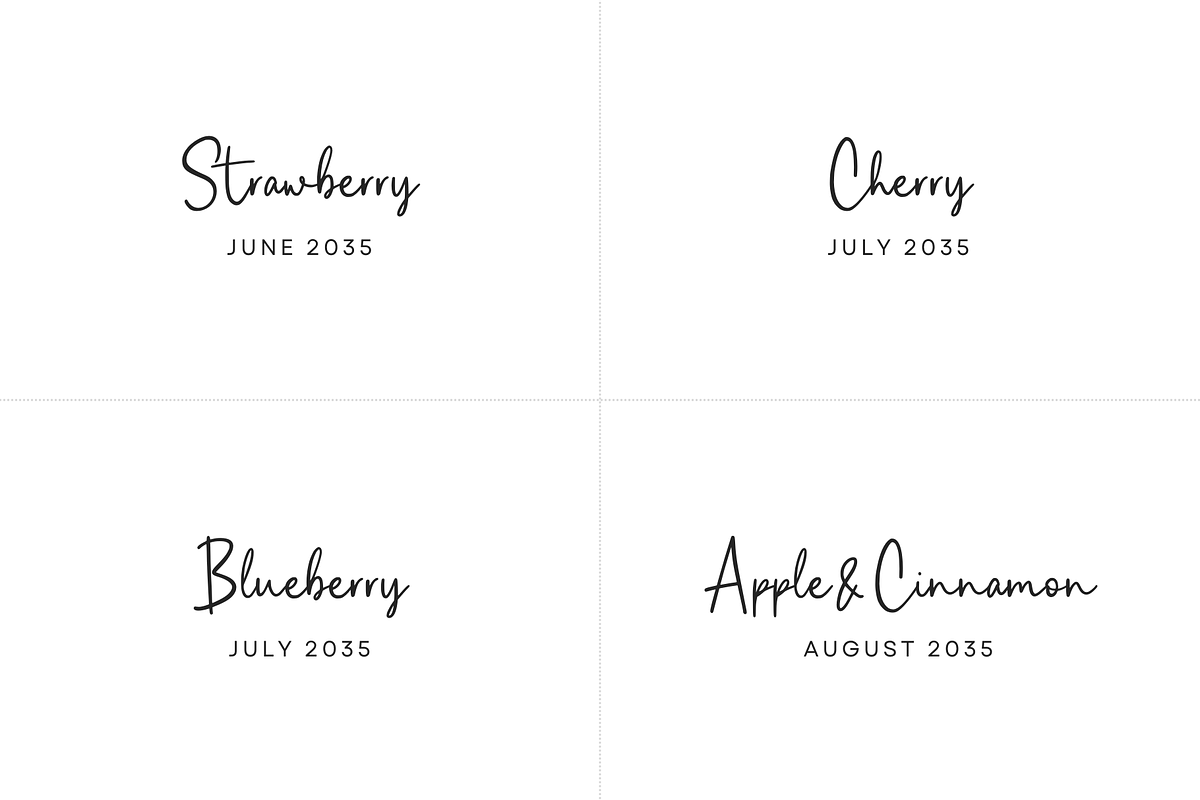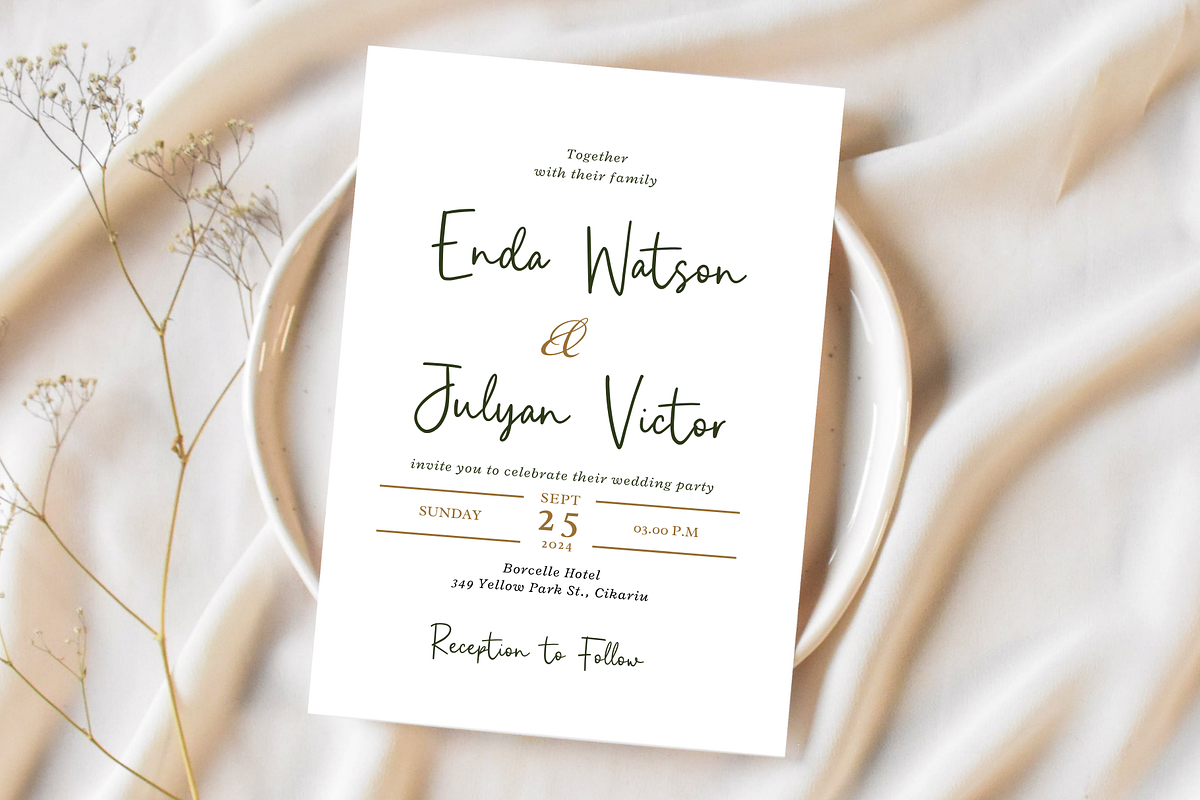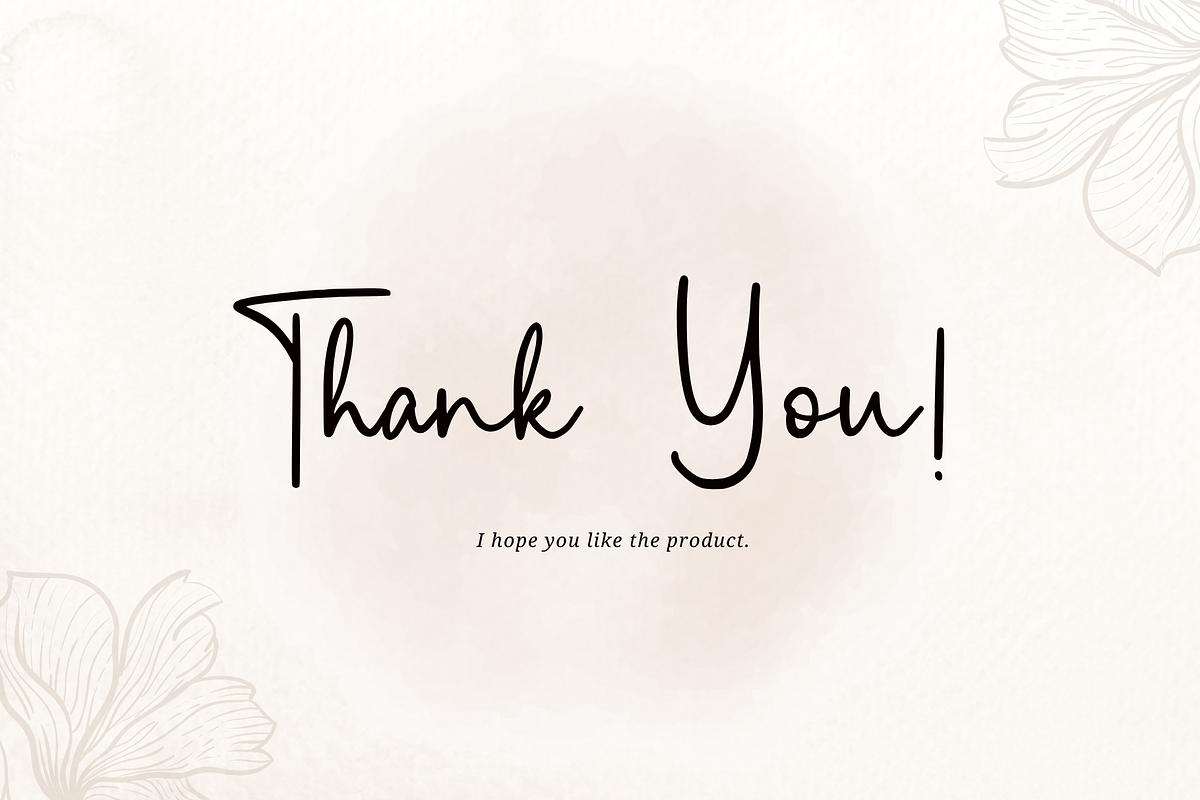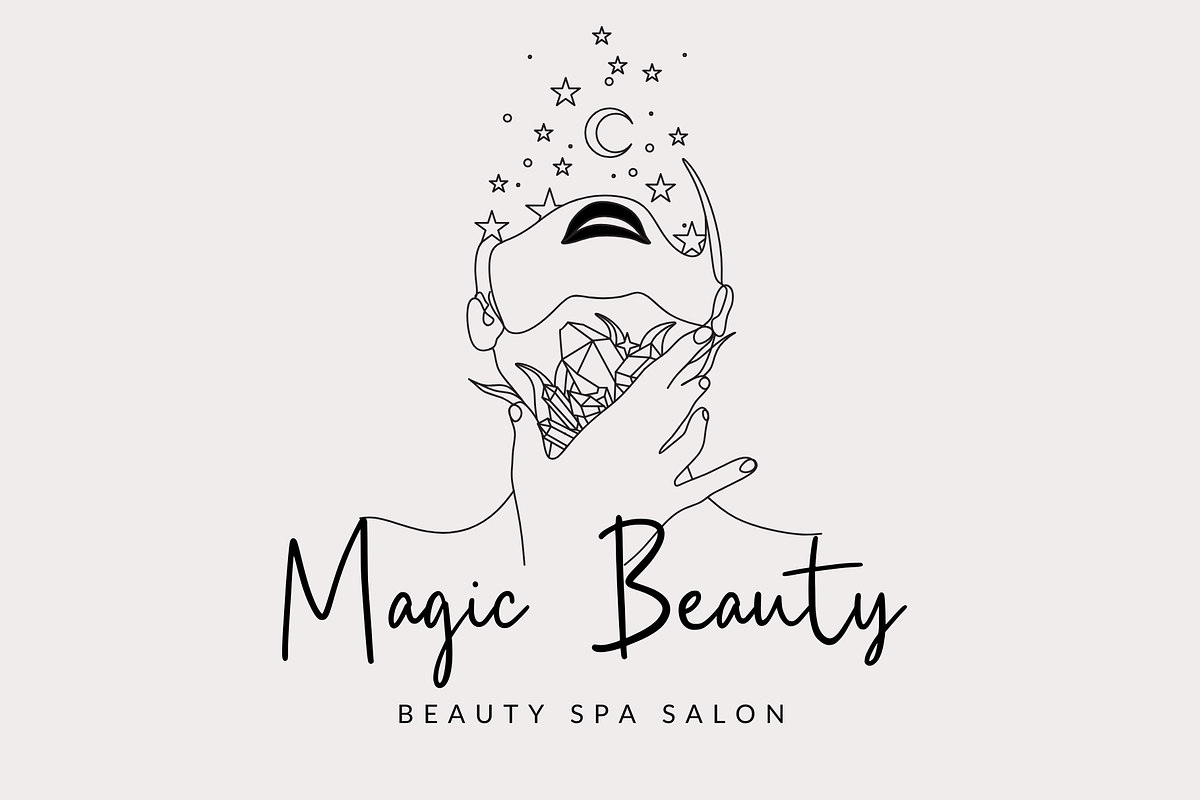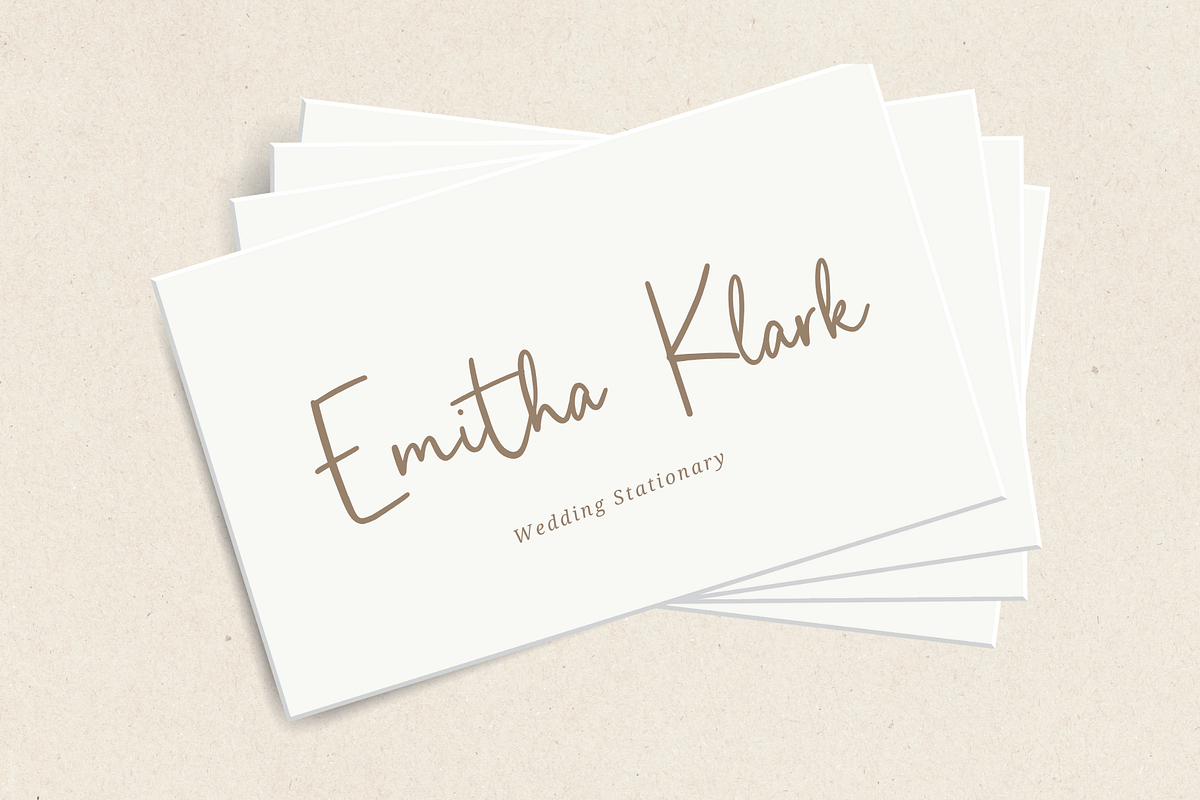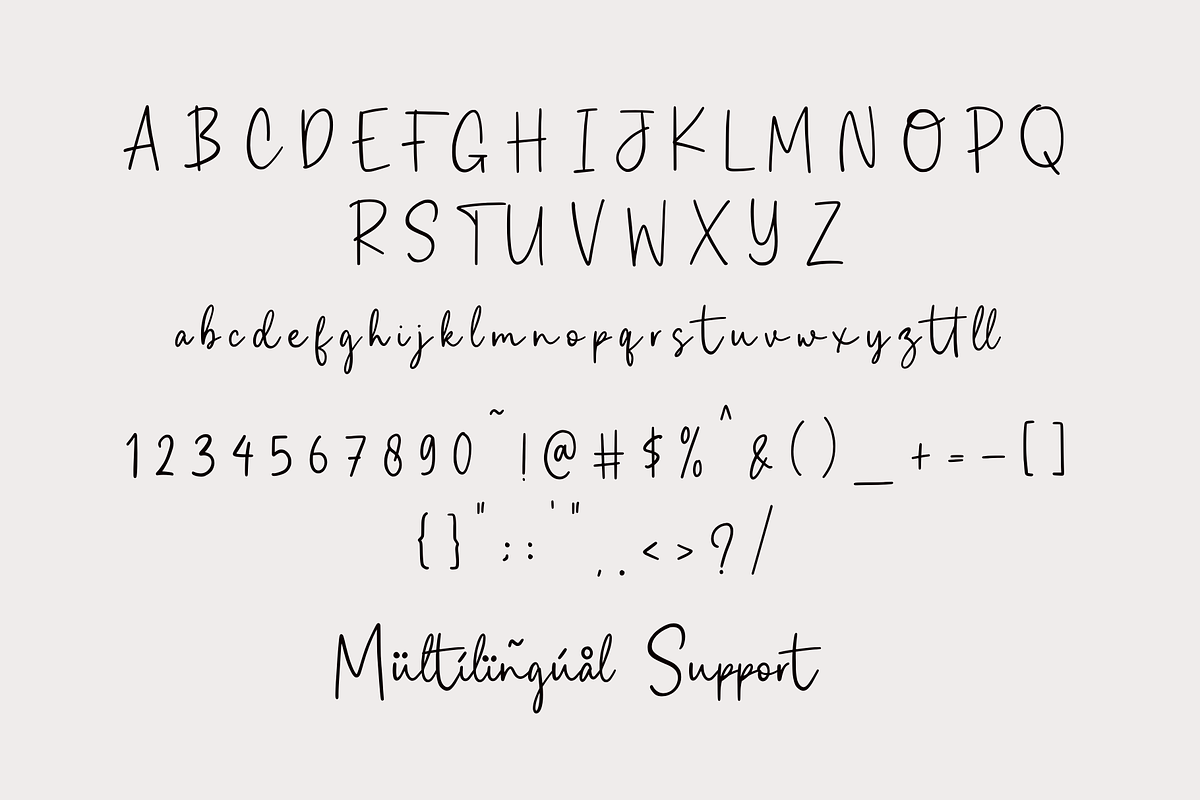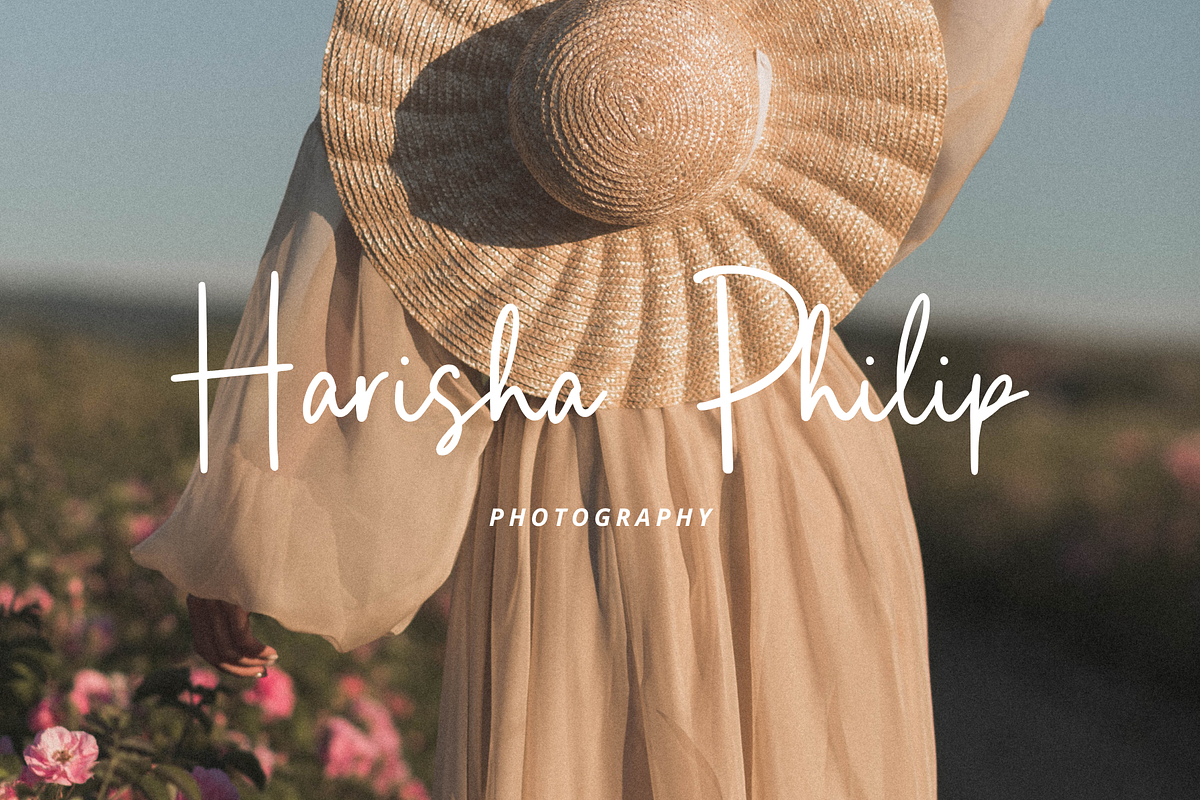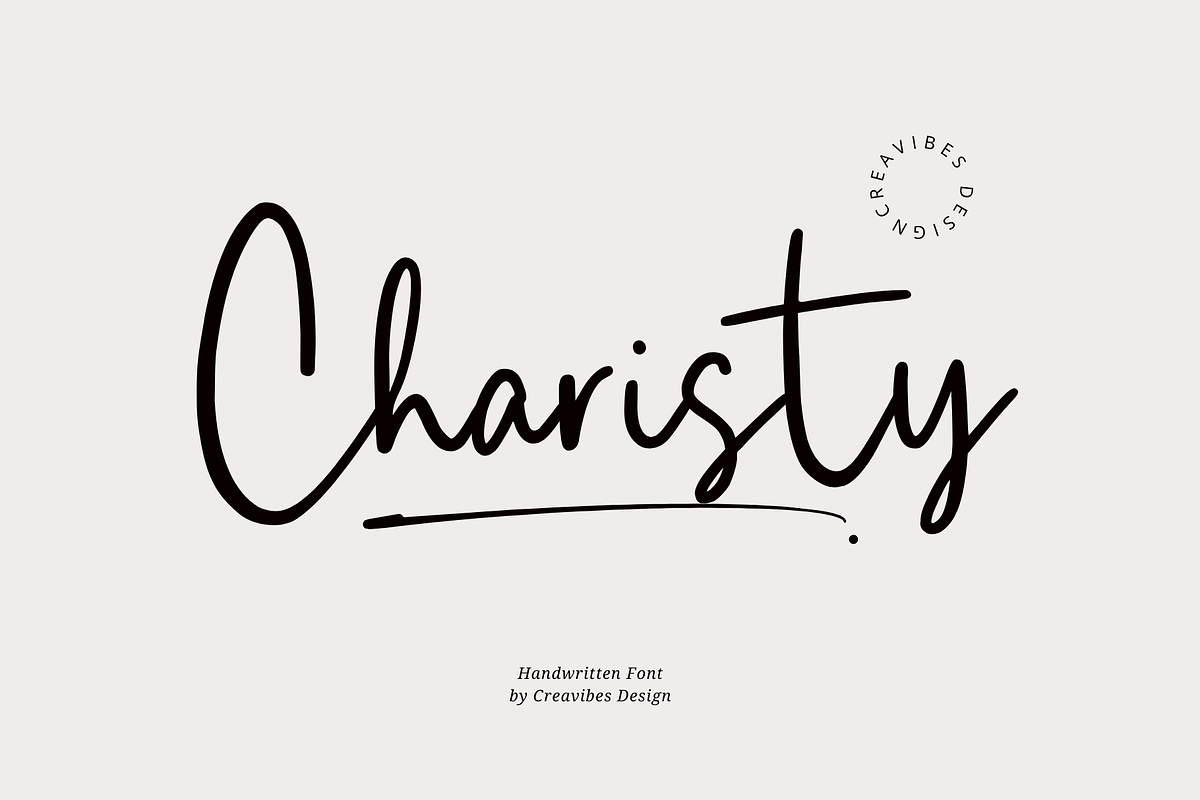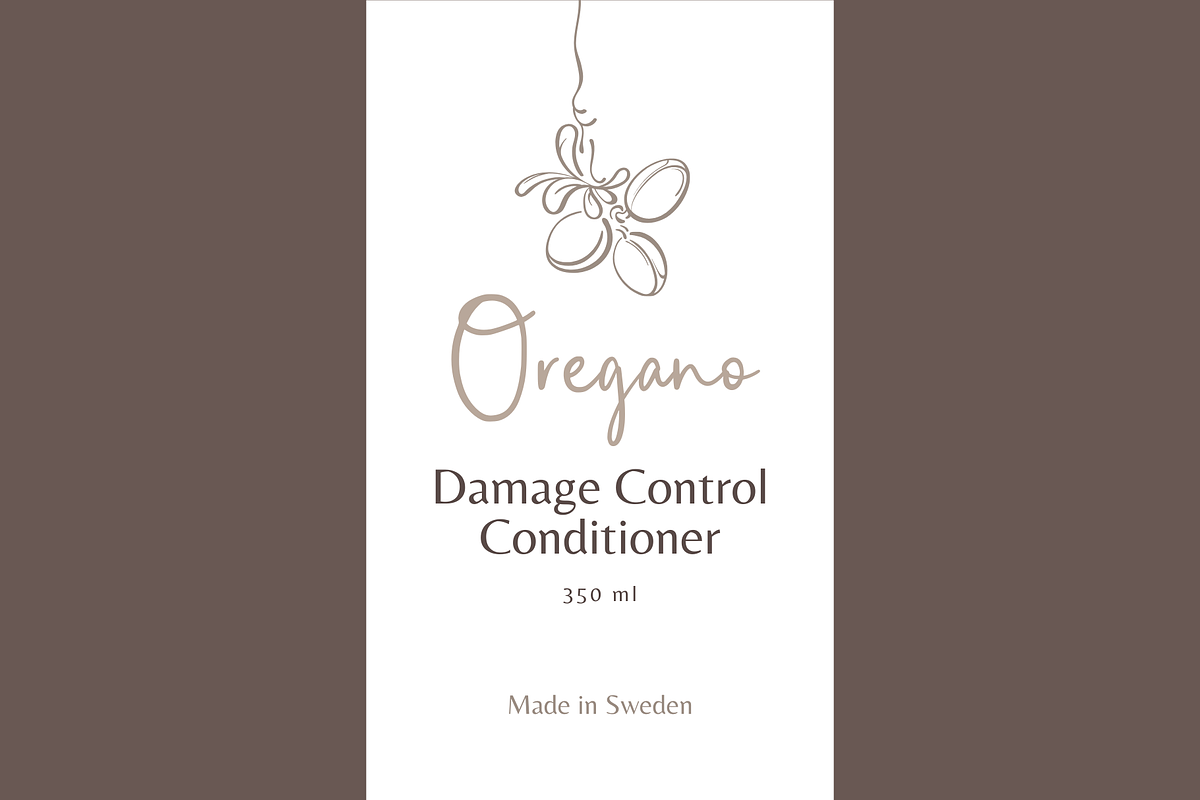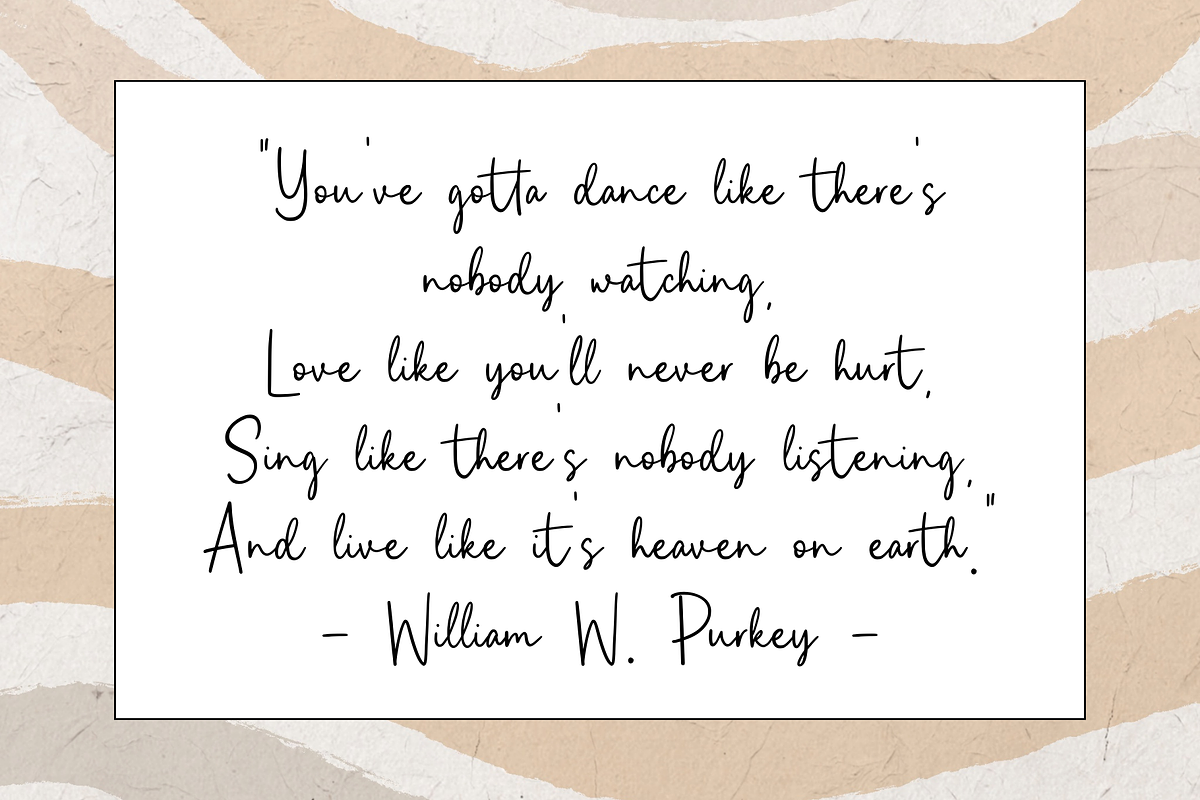
Charisty - Script Font
“Charisty” is a handwritten script font that exudes authenticity and warmth. With its natural flow and genuine charm, this font captures the essence of handwritten text. Perfect for projects that require a personal touch, such as invitations, greeting cards, or journal entries, “Charisty” adds a unique and heartfelt dimension to your designs, making each word feel like a personal message from the heart.